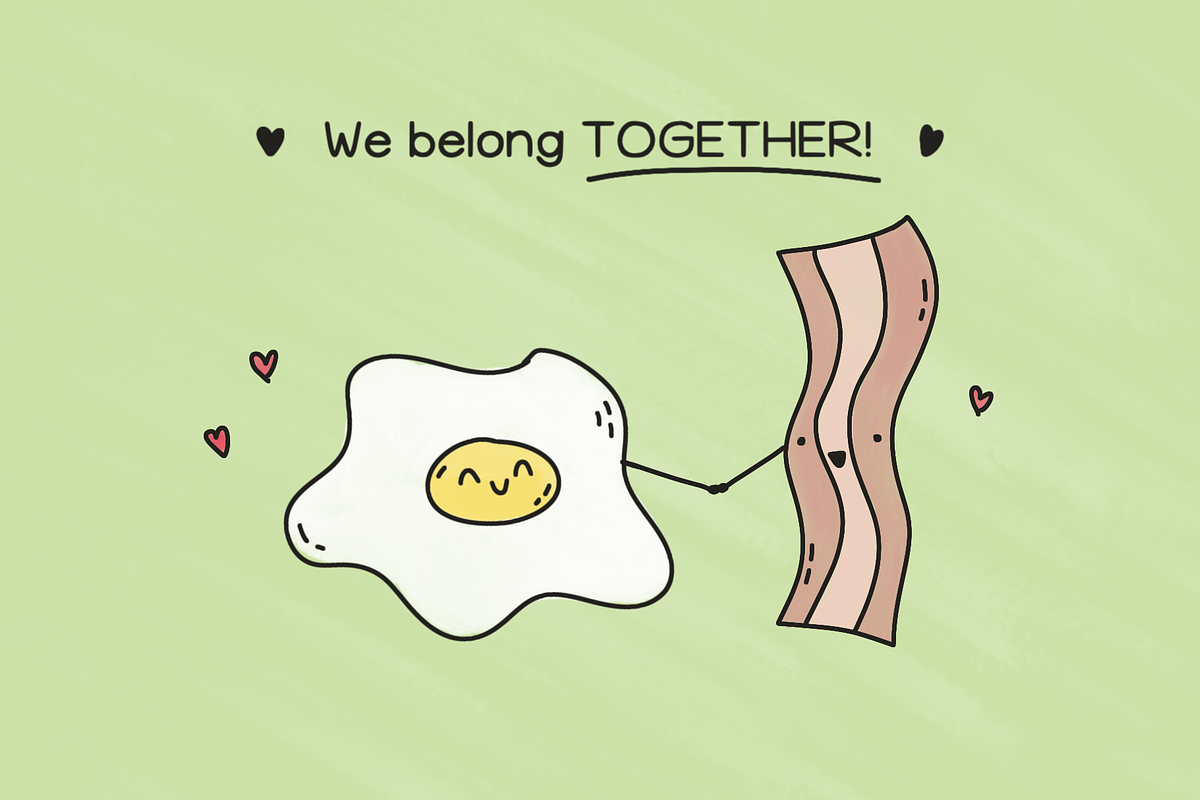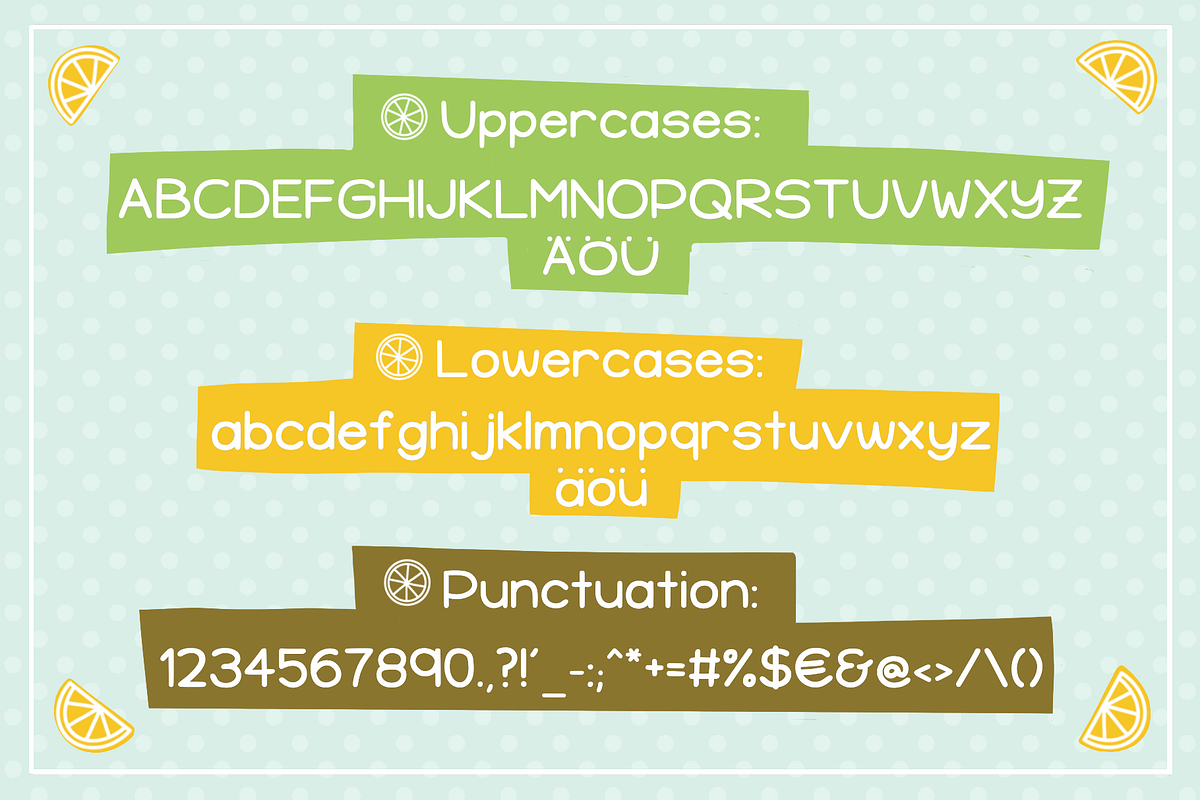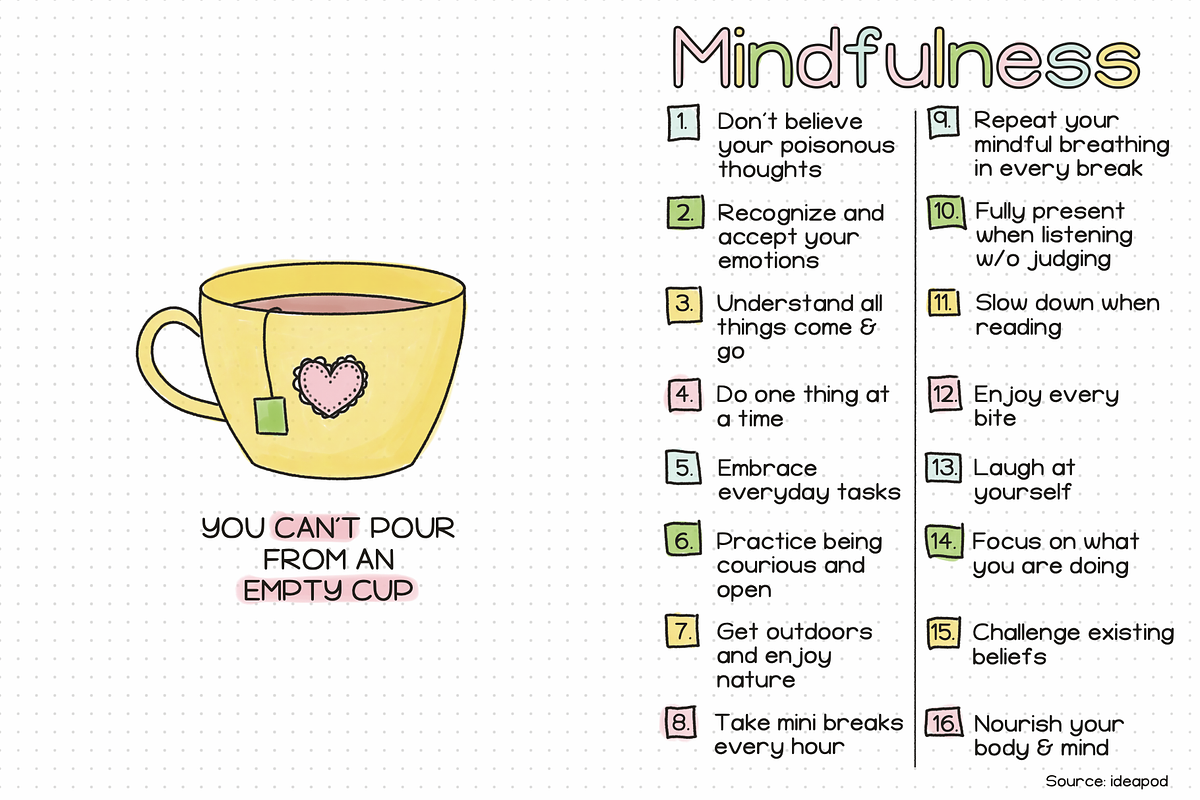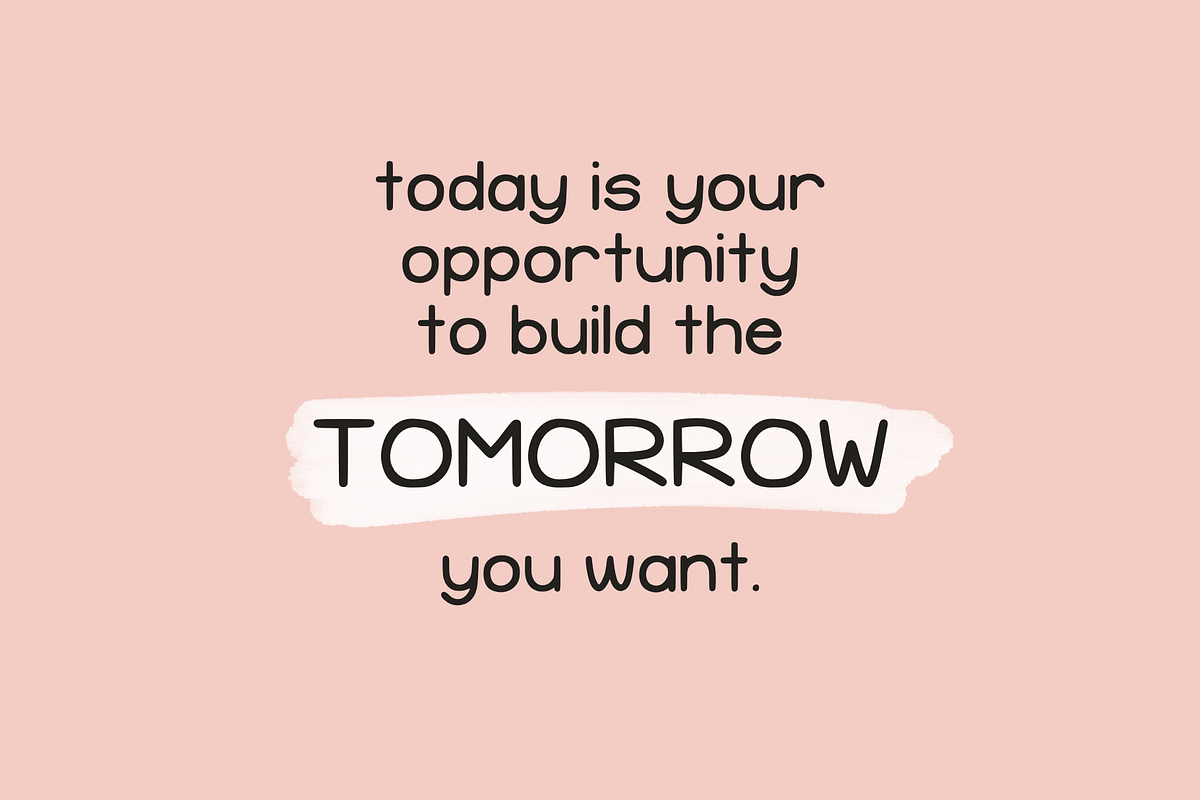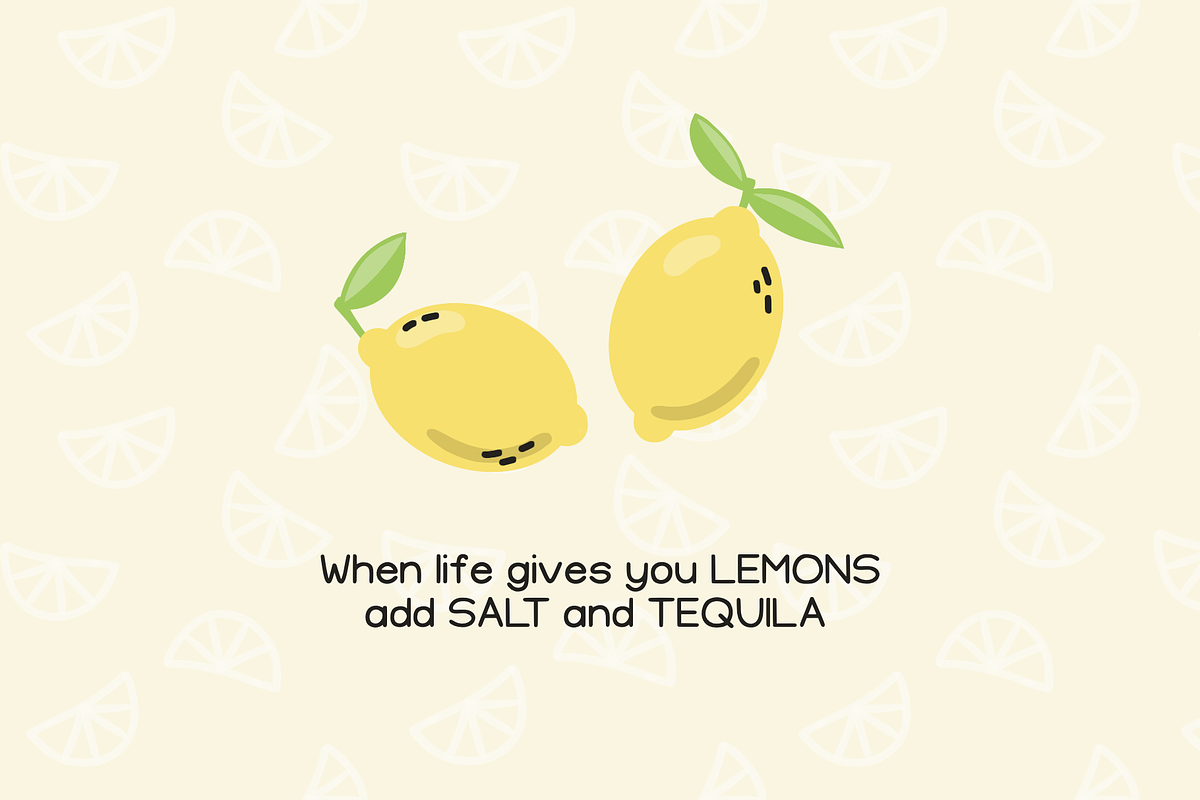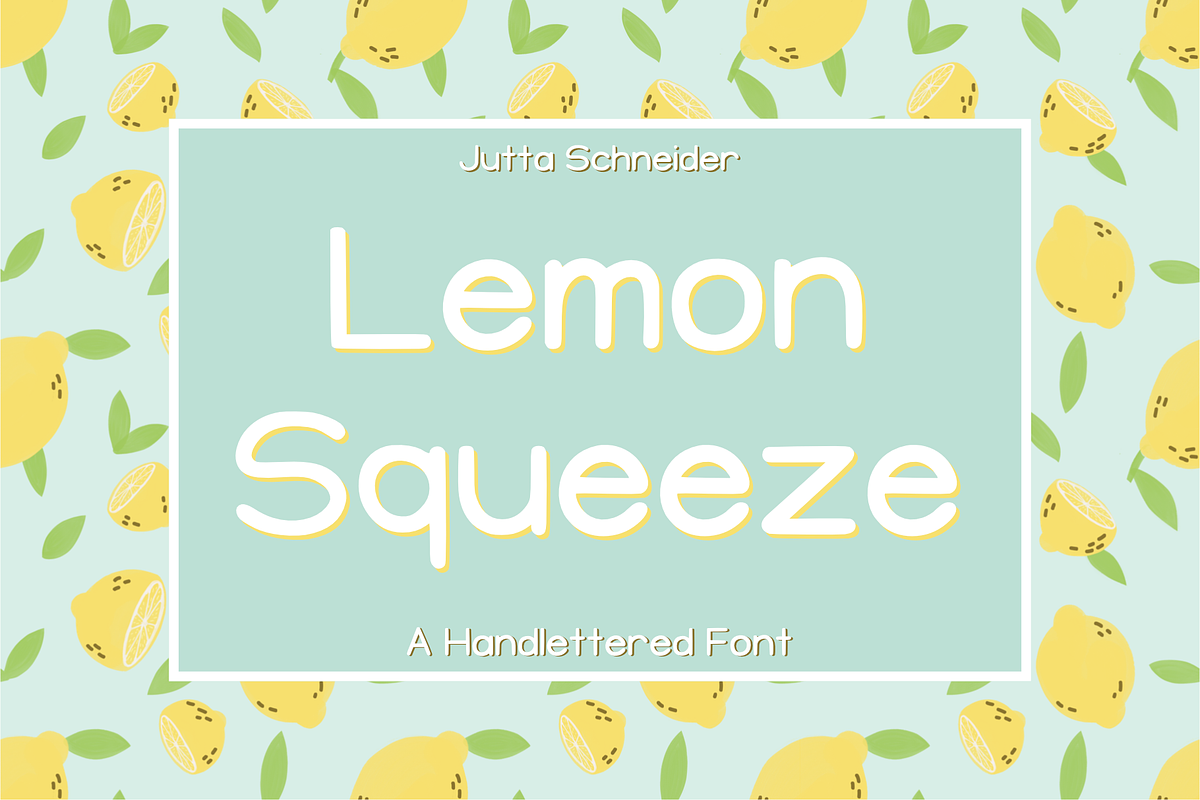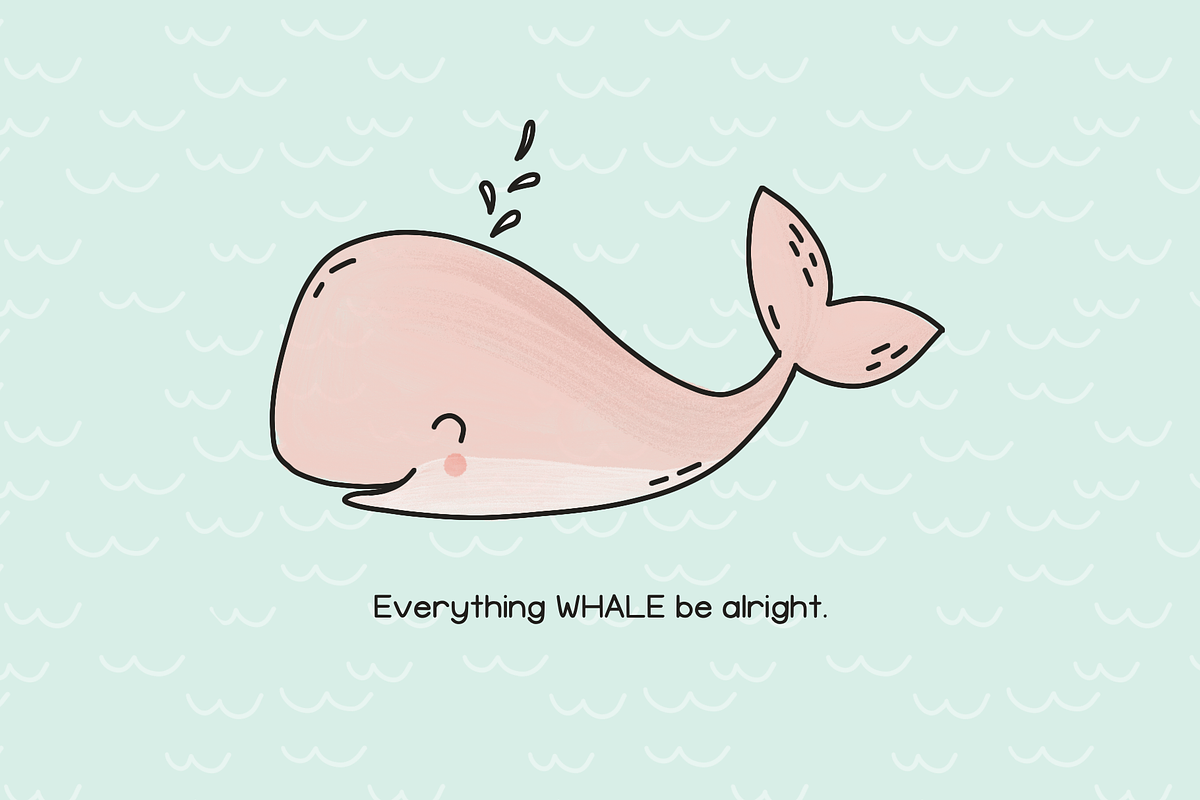
LemonSqueeze
LemonSqueeze; a handlettered font
This is a playful yet even typeface - straight but with tiny little imperfections. It looks like you wrote by hand with a perfectly readable and consistent penmanship. Every character was fondly drawn by hand and vectorized subsequently. It has never been so easy to write in a simple but beautiful (faux) penmanship - easypeasy lemonsqueezy! ;-)
Use this font for headings, flyers , greeting cards, product packaging, book covers, printed quotes & album covers. This typeface goes very well with your digital planner and doodles, too.